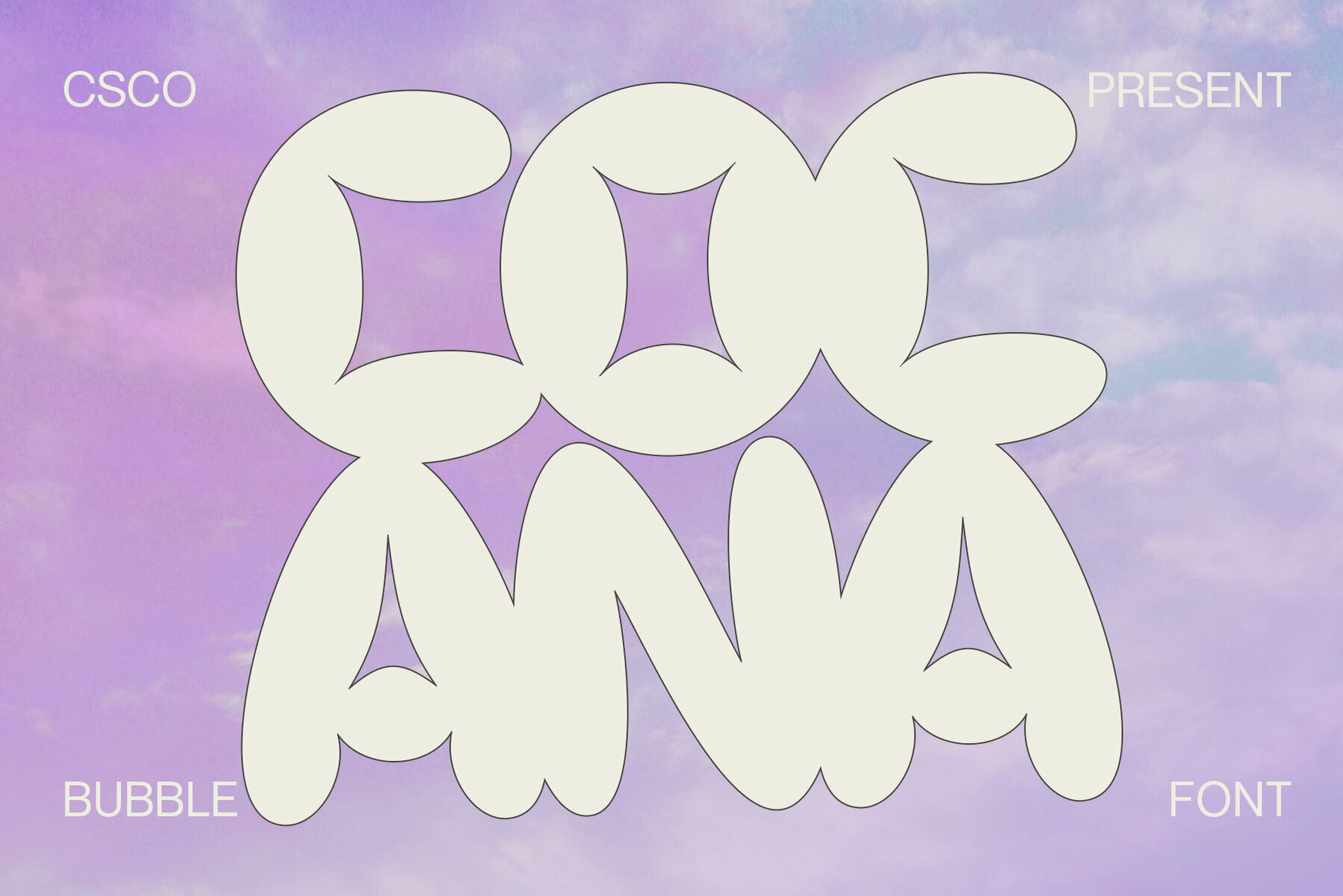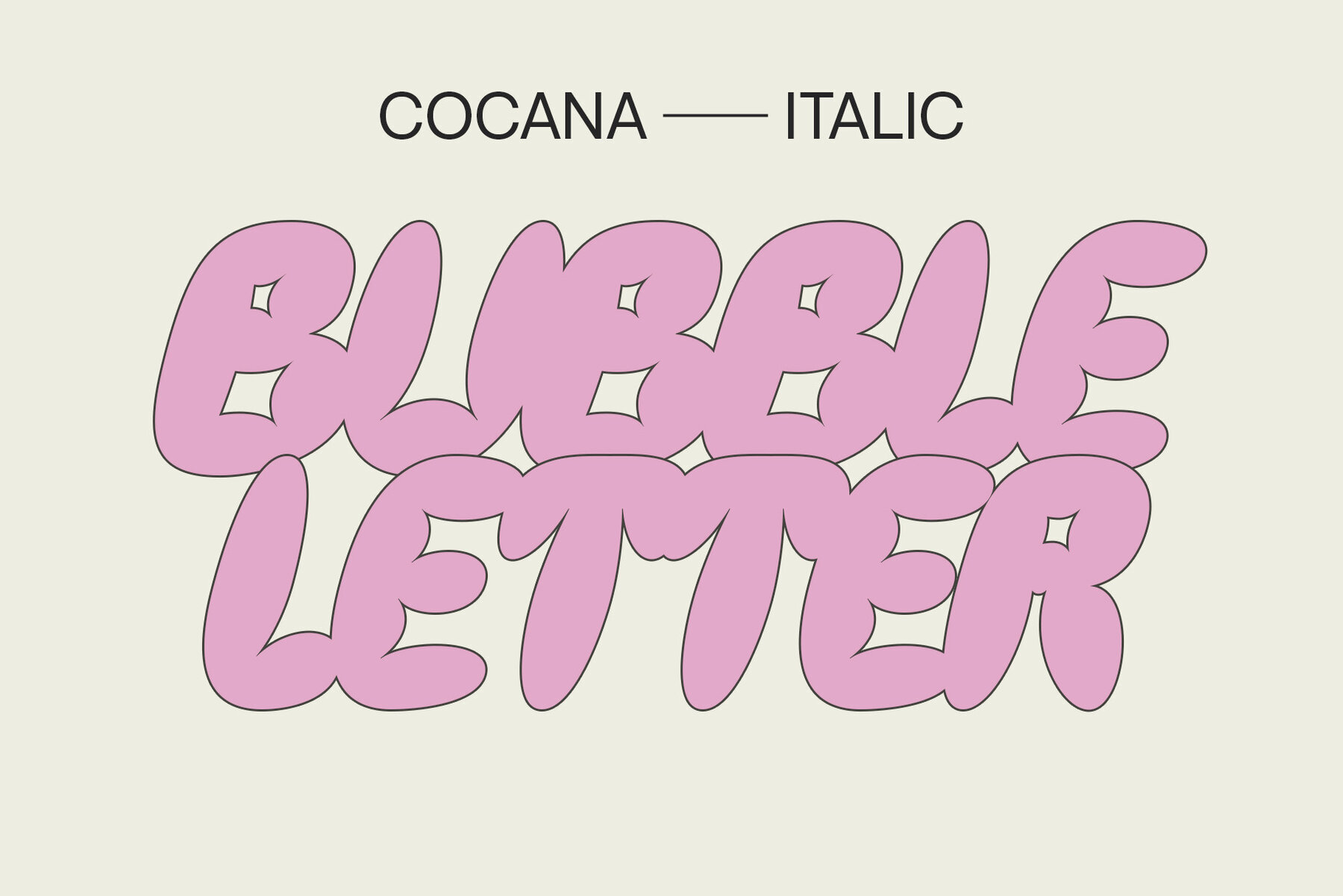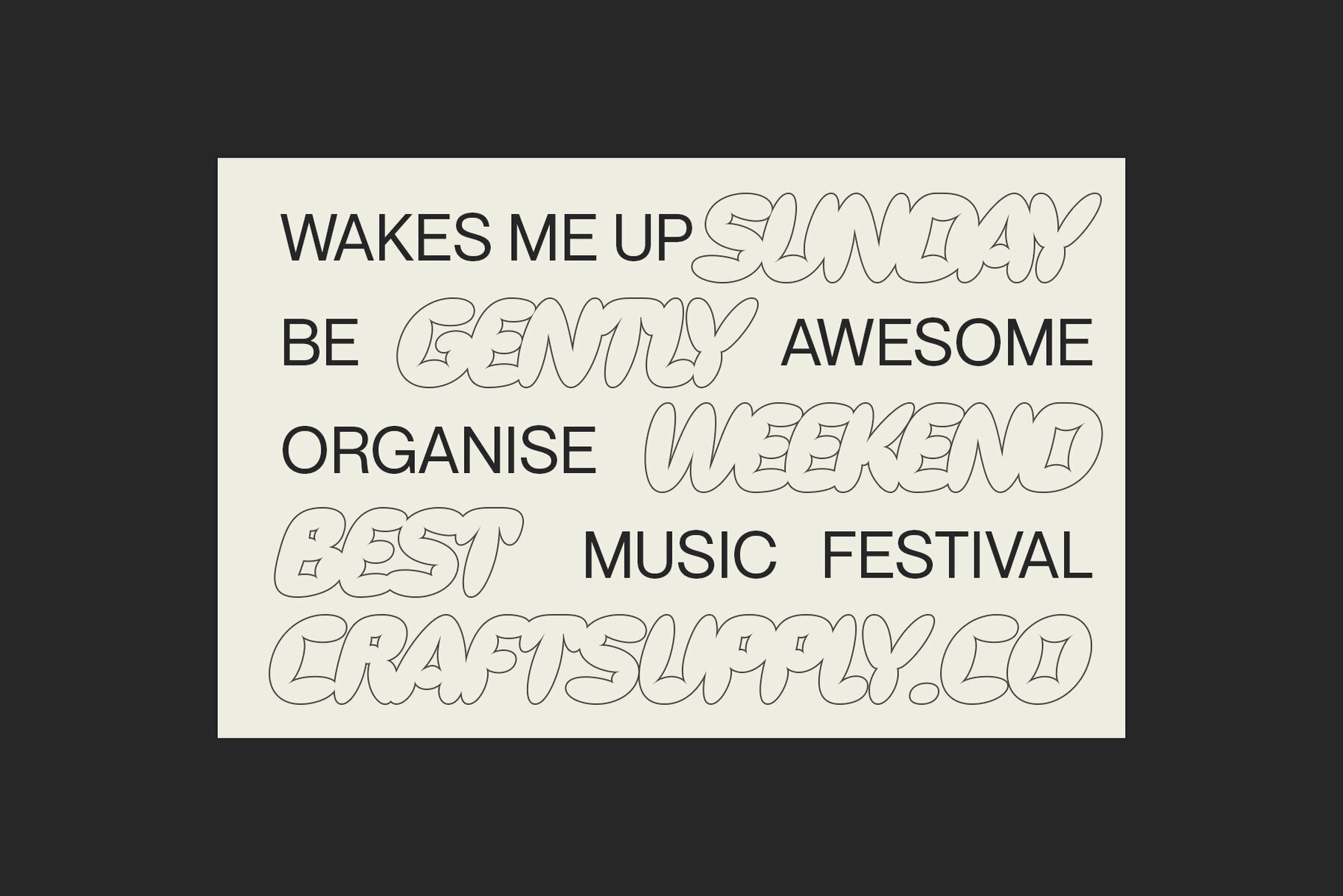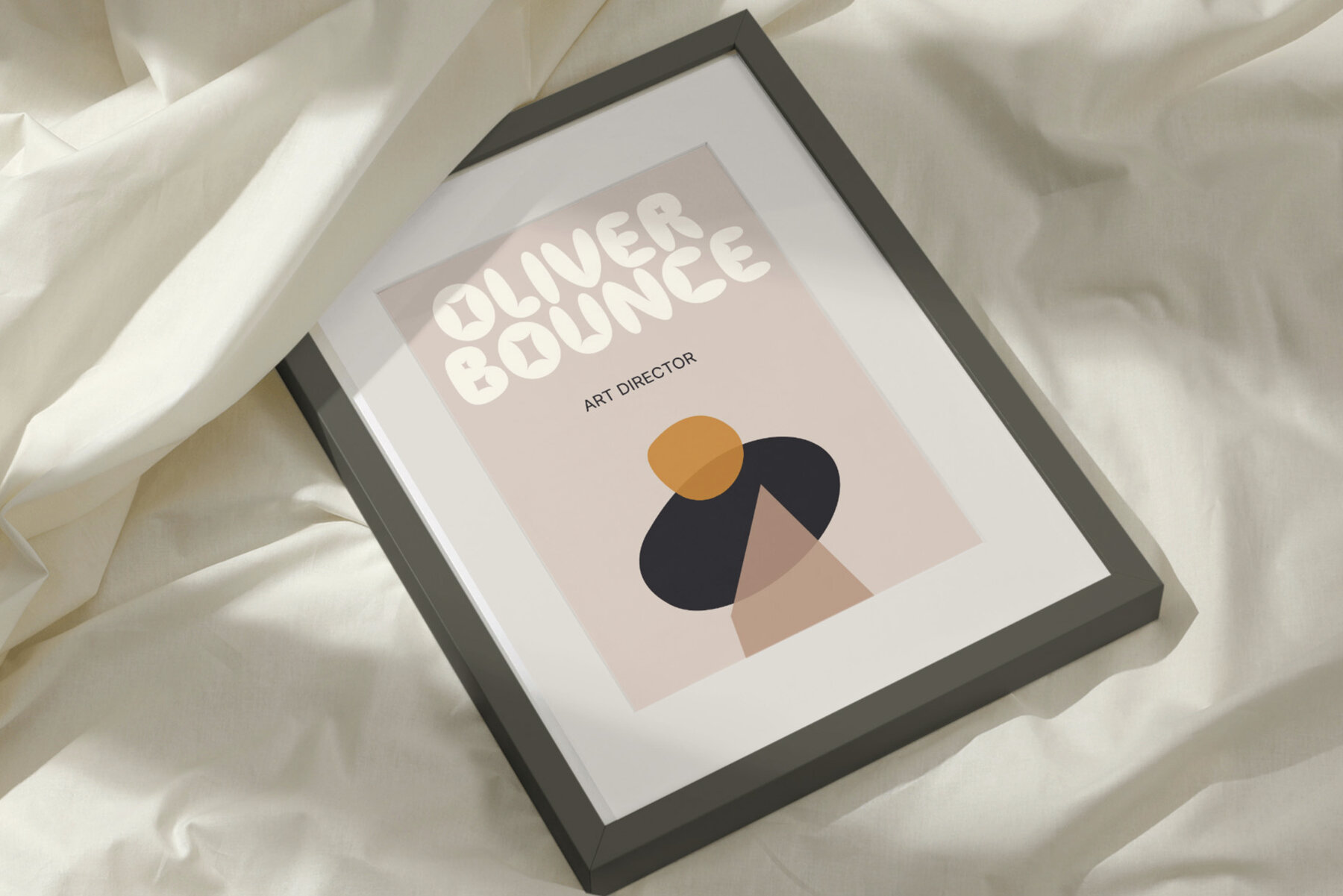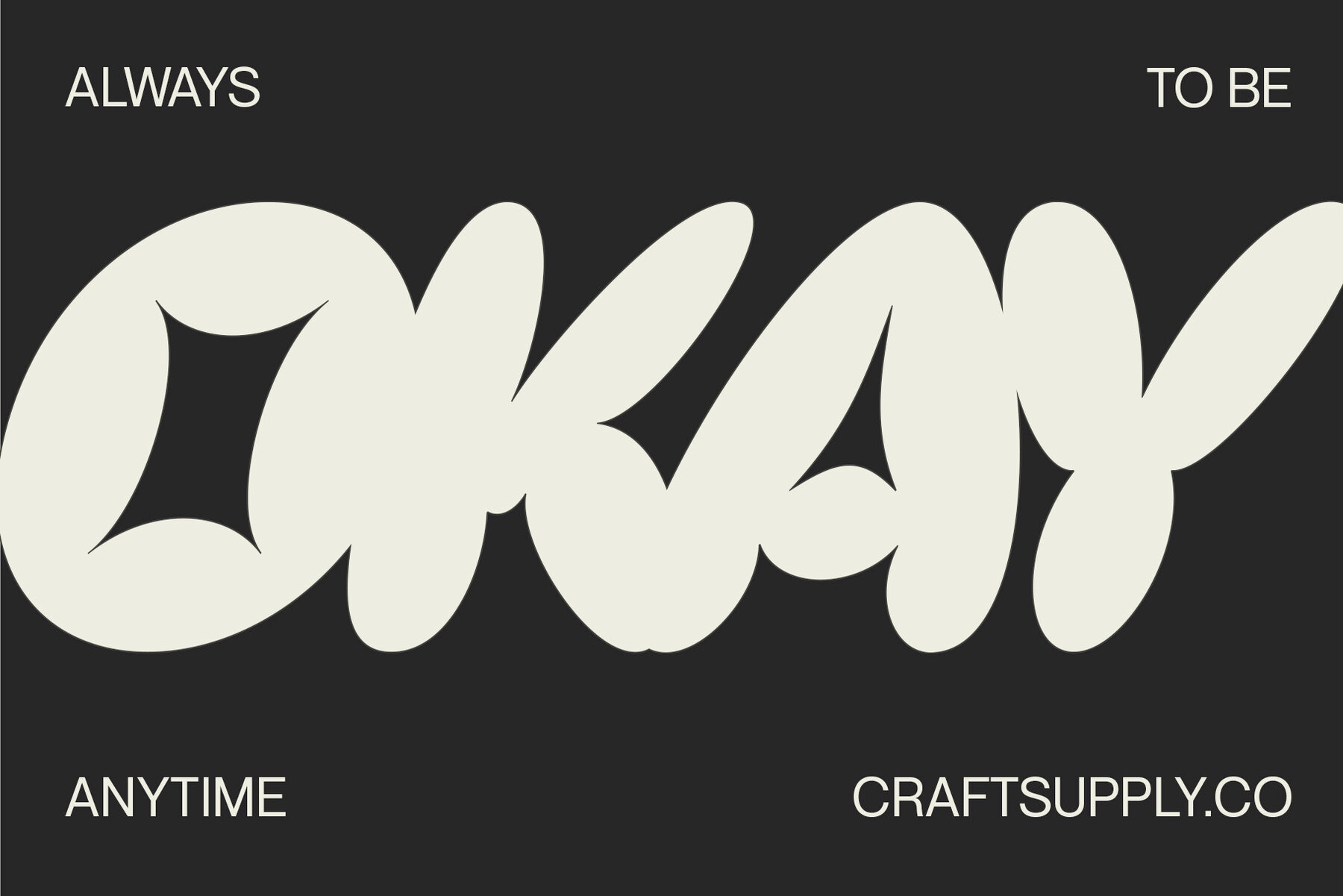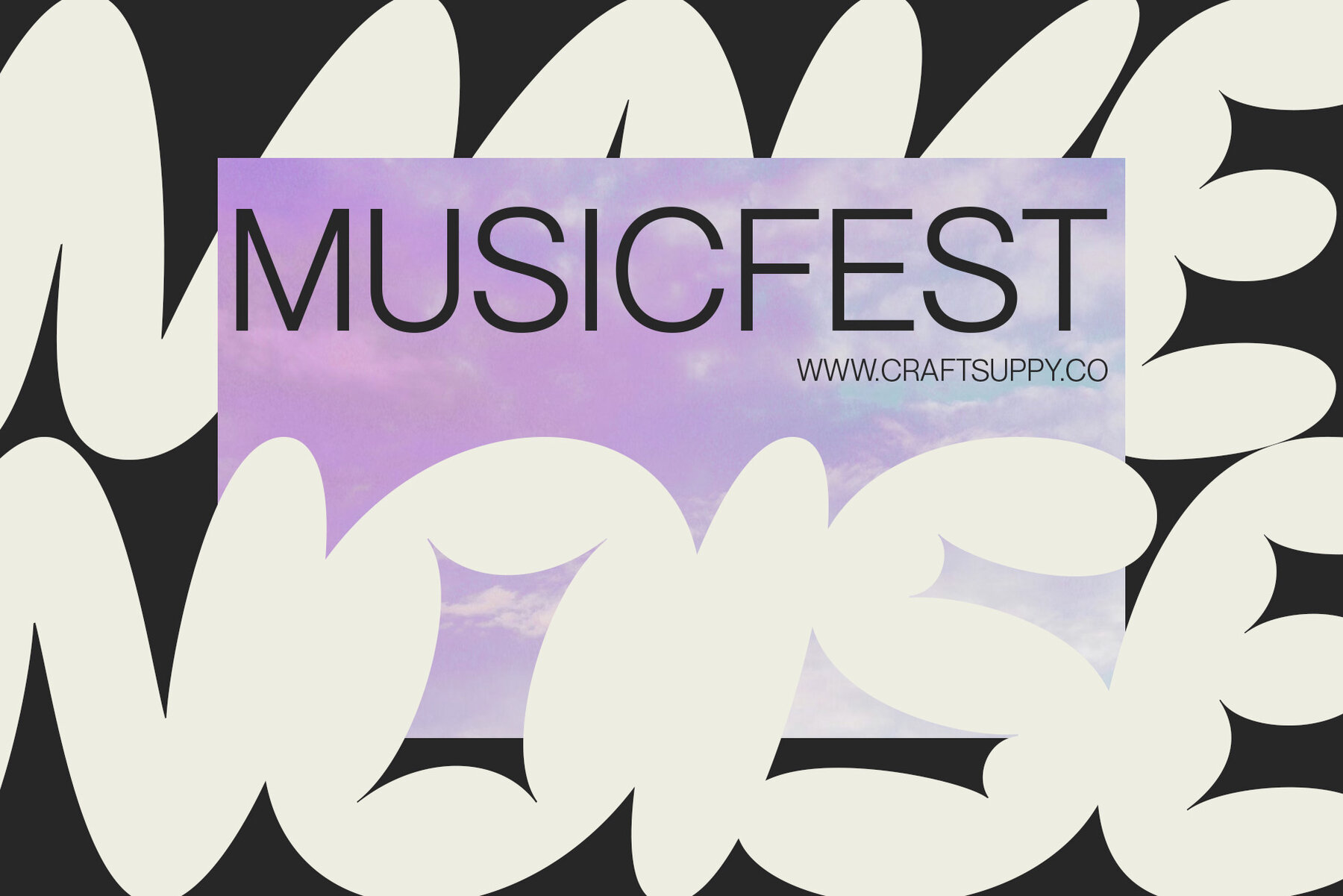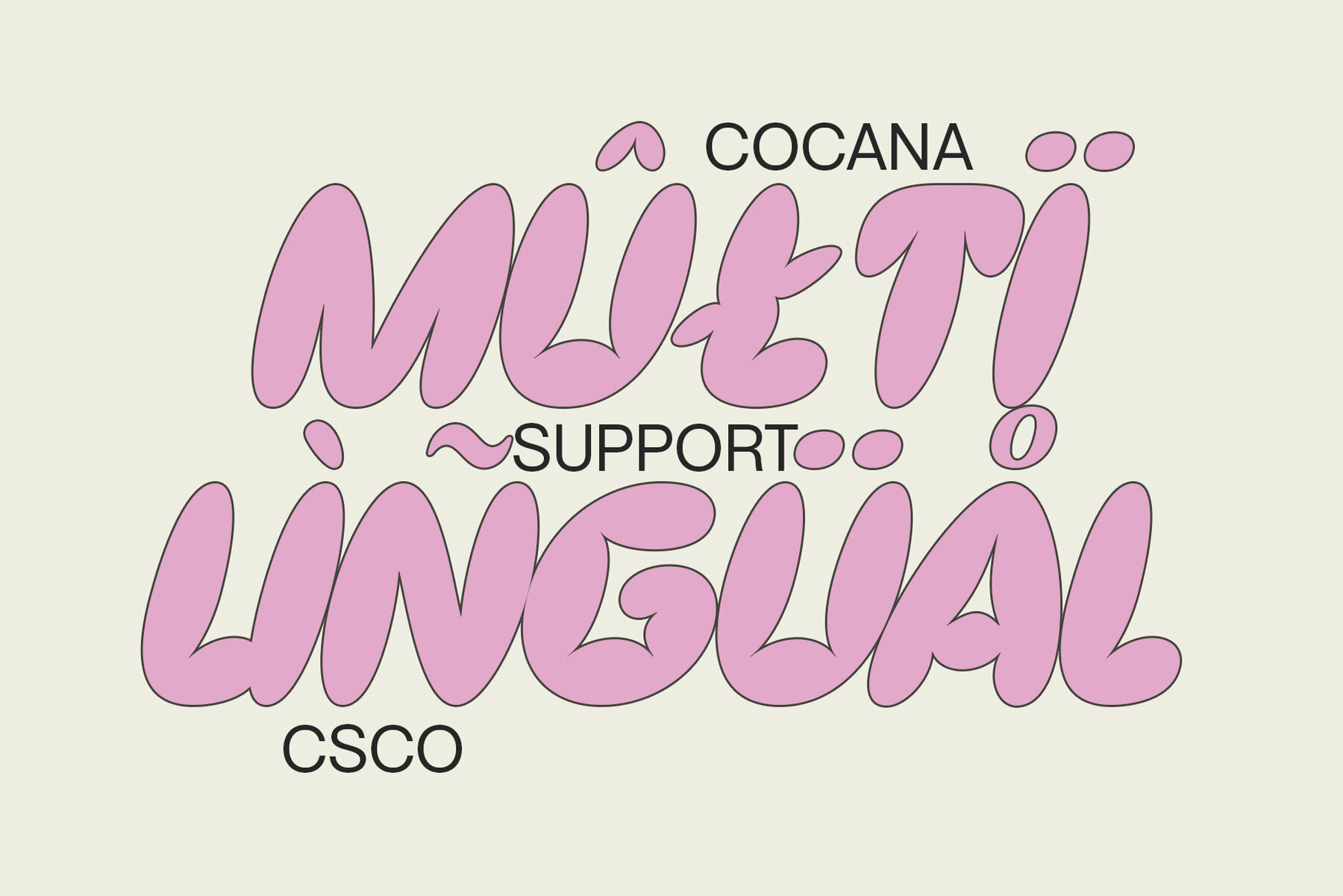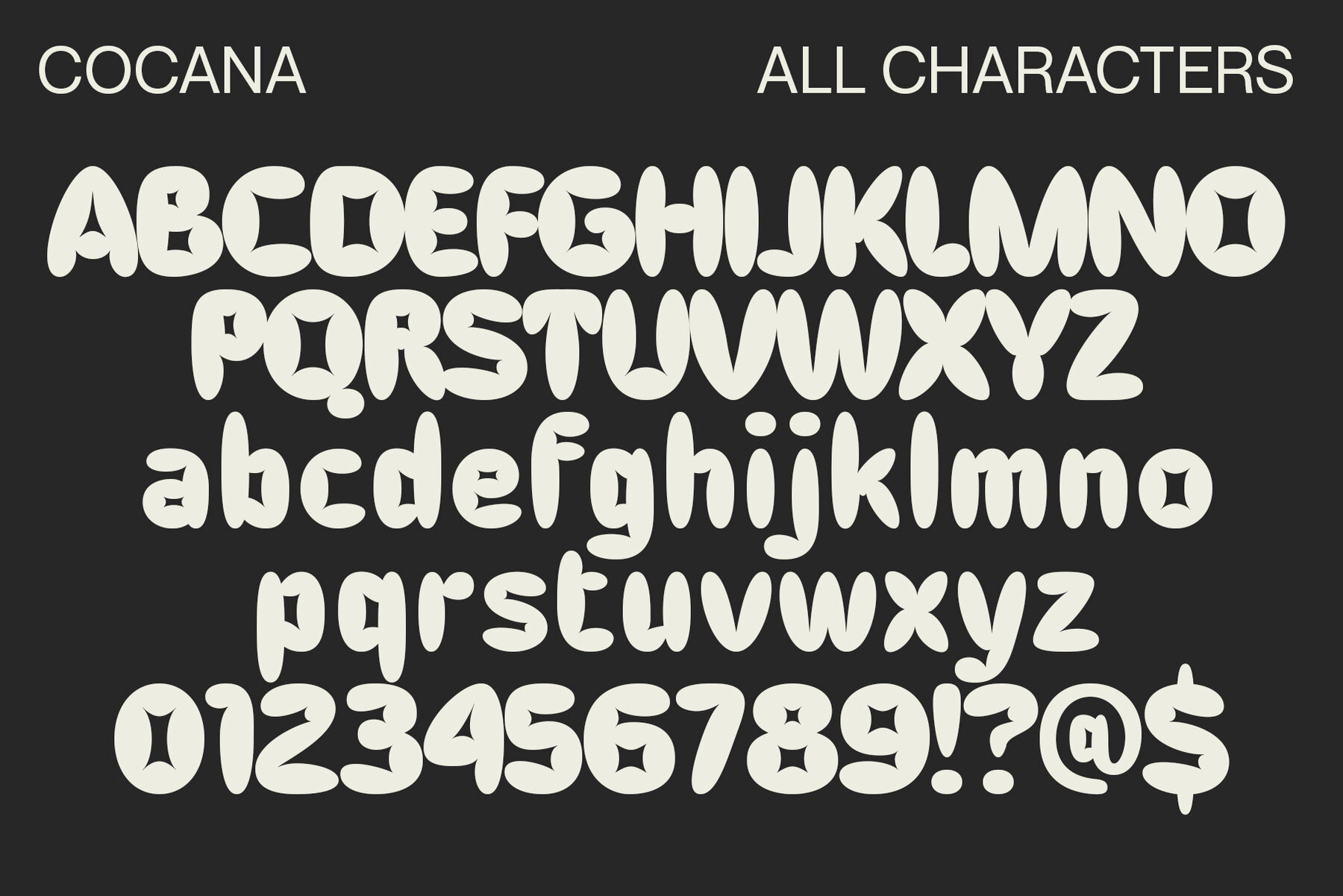
Cocana Font
Cocana - The Bubble Font is a playful and bubbly typeface that brings a cheerful and light-hearted vibe to your designs. With its rounded and bulbous letterforms, Cocana exudes a sense of fun and whimsy. This font is perfect for projects that aim to convey a sense of joy and youthful energy. Whether you're working on invitations, posters, or any creative endeavor, Cocana adds a touch of playfulness and charm. Cocana is like a burst of happiness in the world of typography, making it an excellent choice for projects that want to radiate positivity and a carefree spirit.